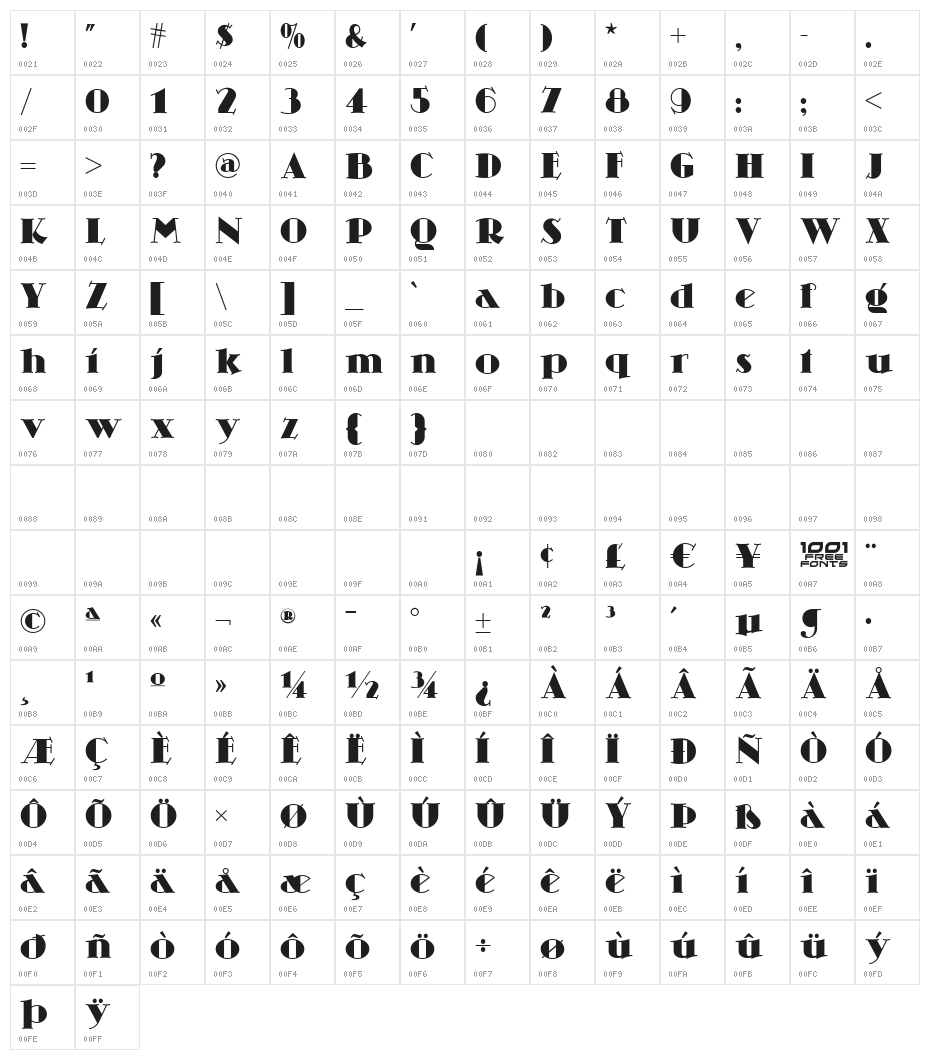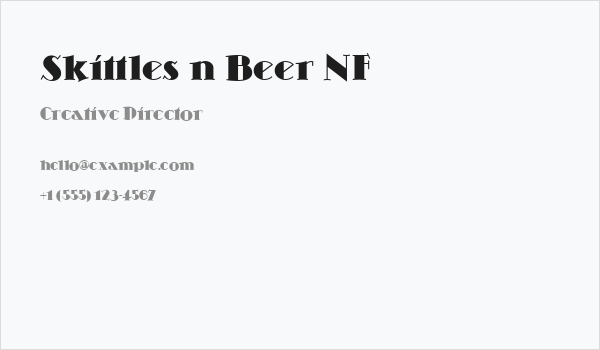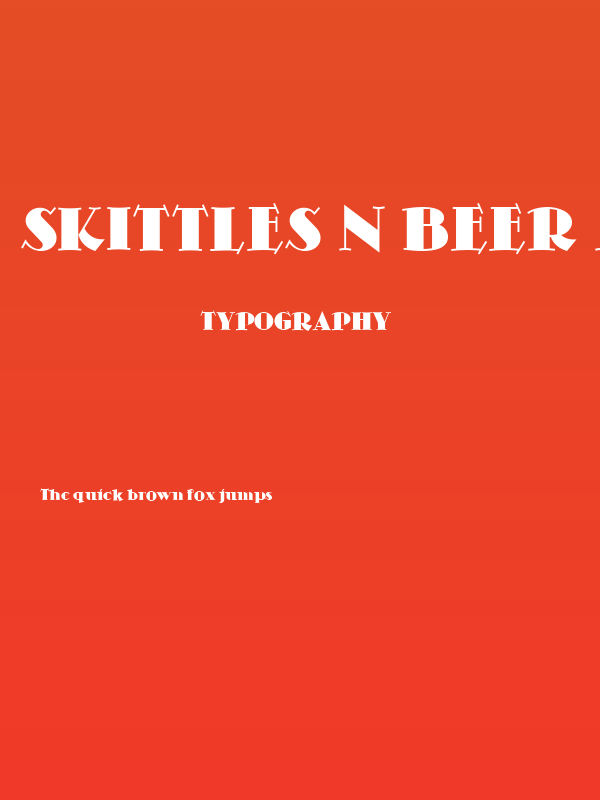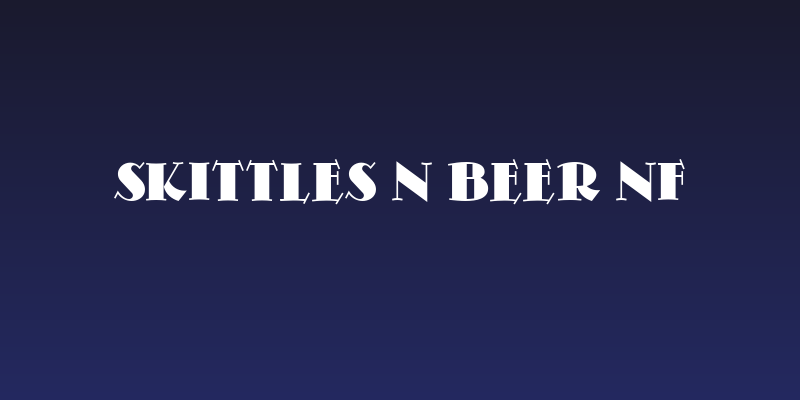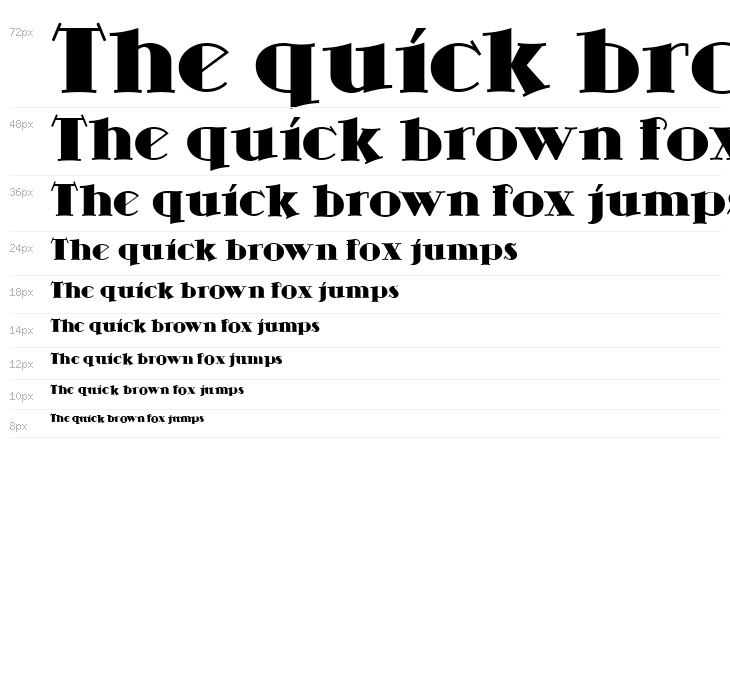
Skittles n Beer NF Font
Skittles n Beer NF Description
This font features a bold and dynamic style with a distinctive flair. The uppercase letters are characterized by sharp angles and unique serifs that give them a modern and edgy appearance. The lowercase letters maintain a consistent style, with some characters featuring slight curves that add a touch of elegance. The numerals are bold and easily readable, matching the overall aesthetic of the font. Special characters are designed with the same attention to detail, ensuring a cohesive look across all elements. This font is ideal for making a strong visual impact.
| Proposed Projects | Ideal for branding, headlines, posters, and any project requiring a strong visual impact. |